24 Best Stencil Fonts
Find the Best Stencil Font to Download Today
Designers! Today we bring you an awesome collection of the best stencil fonts created by the industry's leading design experts! This selection of fonts for stencils from Envato Elements includes fresh designs with creative aesthetics.
Monty Stencil Font (OTF, TTF, EOT, WOFF, WOFF2)
Monty is a modern stencil font that belongs to the grotesque sans serif family. It comes with alternate characters for multilingual support.
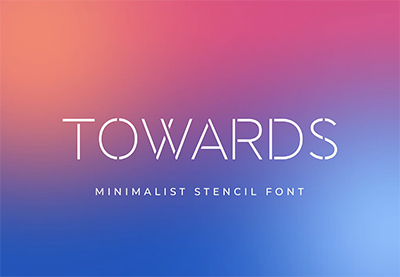
Towards: Minimalist Stencil (OTF, TTF, WOFF)
This is a futuristic sans serif stencil typeface. The design of the stencil font is minimalist and can fit your modern projects. This stencil font comes with a web font file.
Quas Serif Stencil Font (OTF, WOFF)
This fashionable serif stencil font download features a sleek and elegant design. It pairs well with script and sans serif fonts.
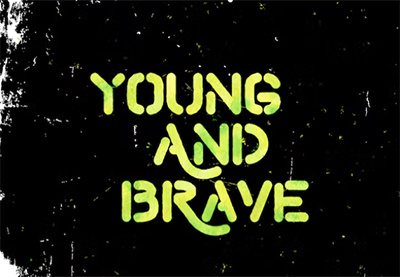
Hemingwar Stencil Font (OTF, TTF, WOFF)
Inspired by Hemingway's adventurous lifestyle, this old-fashioned stencil font features bold letters and rounded corners. It works perfectly for logos, headlines, and more.
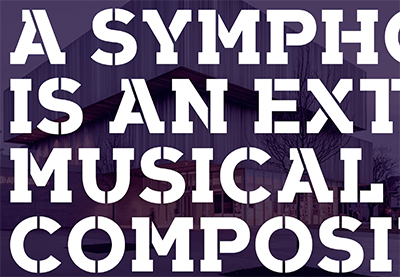
Arkibal Serif Stencil Font (OTF, TTF, EOT, SVG, WOFF, WOFF2)
This serif stencil font is a bold, modern typeface with historical roots reminiscent of military serif stencil fonts. This 3D stencil font includes over 270 stencil glyphs.
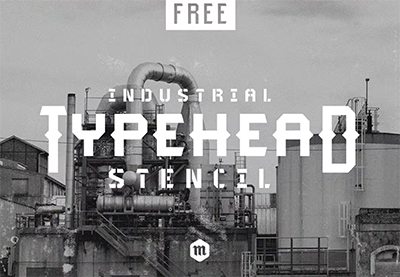
Typehead Text Stencil Font (OTF)
Pay homage to industrial design with this stencil font download. It's an old-fashioned stencil font with both regular and stencil versions.
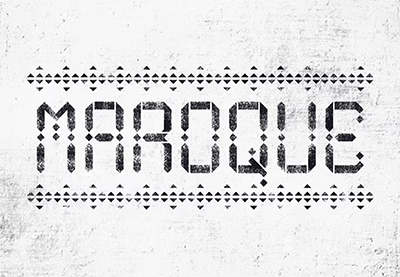
Maroque Stencil Font (OTF)
Some fonts make you feel as if you're in a movie. This distressed stencil font does just the trick! Download the file to unlock amazing letters, numbers, and patterns.
Hillary Room Typeface (OTF, TTF)
This stencil font mixes traditional hand-brushed styles with a modern stencil font to create a unique cursive stencil font.
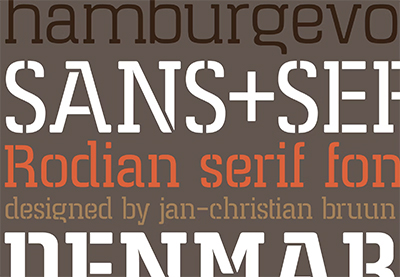
Rodian Stencil Serif Font (OTF, TTF, EOT, SVG, WOFF, WOFF2)
Inspired by the subway stations of New York City, Rodian is a standard stencil serif font with stylish letters.
Hand Stencil Font (OTF, TTF)
Get the authentic, handmade feel with this stencil font. It's a calligraphy stencil font with a hand-lettered design for letters, numbers, and punctuation.
Luna Serif Stencil Font (OTF, TTF)
Take your work to the next level with this bold stencil serif font. This 3D stencil font features tall capital and lowercase letters.
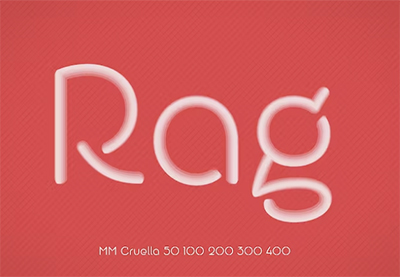
MM Cruella Typeface (OTF, EOT, WOFF, WOFF2)
This modern stencil font features a suite of sleek letters and numbers with creative spaces. Get a full collection of stylish ligatures and varied font weights.
Organa Caps Stencil Font (OTF, TTF, WOFF)
Check out this unique font for stencils. Its geometric aesthetic gives off a trendy, modern vibe with three type styles that are very readable.
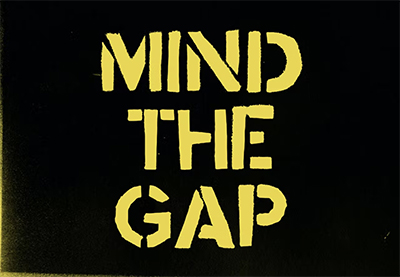
Mind the Gap Spray Paint Stencil Font (OTF)
Go back in time with this nostalgic and rough stencil font. It's an authentic, hand-crafted stencil spray paint font with a military stencil font feel.
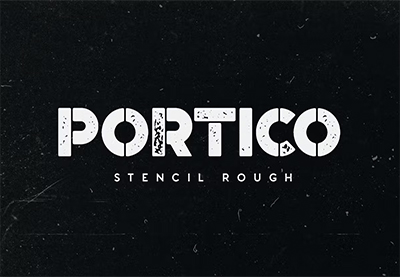
Portico Rough Stencil Font (OTF, WOFF)
Here's a distressed stencil font that's great for titles and big text. It features a stencil design with a rough texture that's perfect for signage or apparel.
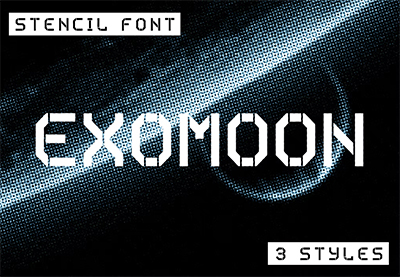
Exomoon Display Stencil Font (OTF)
This one-of-a-kind uppercase stencil font features slightly irregular edges and three different stencil font designs: regular, letterpress, and lines.
Megaton Stencil Font (OTF, WOFF2)
Try this big and bold distressed stencil font with uppercase multilingual letters, numbers, and punctuation. It's perfect for posters and signs.
Autobahn Spray Paint Stencil Font (OTF, PNG)
Capture the essence of spray-paint stencil fonts with this bold display typeface full of street attitude. It comes with bonus spray-paint drips.
Fountencil Old Fashioned Stencil Font (OTF, TTF)
This Old English serif stencil font features upper and lowercase letters. It's a great blackletter script stencil font, and it's also a multilingual font.
Michelangelo Stencil Font (OTF)
Michelangelo is a bold and modern stencil numbers font with a bit of an army stencil font vibe. It comes in 15 styles to give you loads of creative leeway.
Thunderbolt (OTF)
This family is a mix of four stencil letter font styles composed of a regular form, a rounded form, and two accompanying stencil styles.
Stampline Stencil Font (OTF, TTF)
Try this subtly distressed stencil font that's perfect for logos or labels. The 3D stencil font comes with uppercase Latin characters, numbers, and punctuation.
Pearlone: Stylish Stencil Font (OTF, TTF)
Flair and style come first with this stencil lettering font. You'll get both a regular and bold version of Pearlone in this stencil font download.
Here's a unique take on script stencil fonts. It features a striking geometric style. Try it for just about any project you're taking on this year.